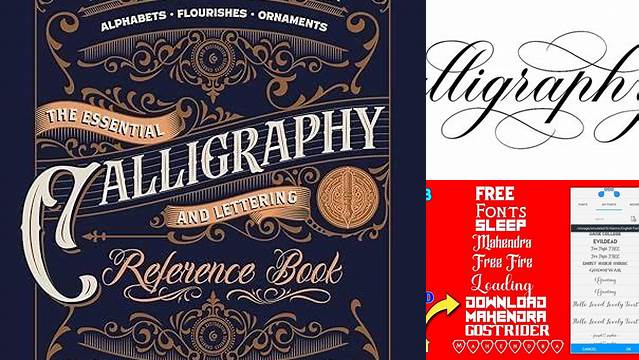
Elegant Calligraphy Fonts For PixelLab Designs
Hey guys! Are you looking to add a touch of elegance and sophistication to your PixelLab projects? One of the best ways to do this is by using beautiful English calligraphy fonts. Calligraphy fonts can transform your designs, making them look more professional and visually appealing. Whether youâre creating logos, posters, social media graphics, or invitations, the right font can make all the difference. In this comprehensive guide, weâll dive deep into the world of English calligraphy fonts for PixelLab, exploring what they are, why they're important, and how you can use them effectively. Weâll also provide you with a curated list of some of the best calligraphy fonts available and guide you on how to install and use them in PixelLab. So, letâs get started and elevate your design game!
What are English Calligraphy Fonts?
So, what exactly are English calligraphy fonts, and why should you care about them? Well, in simple terms, calligraphy fonts are typefaces that mimic the art of hand lettering. Think of those elegant, flowing strokes you see in wedding invitations or official documents â thatâs calligraphy! These fonts bring a sense of artistry and tradition to your digital creations, making them stand out from the crowd. Calligraphy fonts arenât just about looking pretty; theyâre about conveying a certain mood and message. They can add a touch of sophistication, romance, or even vintage charm to your projects. When you use a calligraphy font, you're not just adding text; you're adding a visual element that speaks volumes.
Now, let's talk about the importance of calligraphy fonts in design. Imagine you're creating a logo for a luxury brand â a standard, plain font just won't cut it, right? You need something that exudes elegance and class, and thatâs where calligraphy fonts come in. They can instantly elevate your design, making it look more refined and professional. Similarly, if youâre designing a wedding invitation, a beautiful calligraphy font can set the tone for the entire event, hinting at the romance and elegance to come. But it's not just about high-end designs; calligraphy fonts can also add a unique flair to social media graphics, posters, and even personal projects. They help you express your creativity and make your work more memorable. In the digital world, where visuals are king, using the right font is crucial, and calligraphy fonts are a powerful tool in your design arsenal.
When choosing a calligraphy font, there are several factors to consider. First and foremost, think about the overall style youâre going for. Are you aiming for a classic, traditional look, or something more modern and whimsical? Thereâs a wide range of calligraphy fonts available, from elegant scripts with elaborate flourishes to simpler, more contemporary styles. Consider the readability of the font as well. A beautiful font is useless if itâs too difficult to read. Make sure the letters are clear and distinct, especially in smaller sizes. Think about the weight of the font too â a thicker font might be better for headlines, while a lighter font could work well for body text or delicate designs. Finally, consider the context in which youâll be using the font. What works for a wedding invitation might not be suitable for a business logo, and vice versa. By carefully considering these factors, you can choose a calligraphy font that not only looks beautiful but also effectively communicates your message.
Why Use Calligraphy Fonts in PixelLab?
So, why should you specifically use calligraphy fonts in PixelLab? PixelLab is a fantastic mobile app for creating stunning graphics and designs right on your phone. Itâs user-friendly, packed with features, and, most importantly, it allows you to add custom fonts. This means youâre not limited to the standard fonts that come with the app â you can unleash your creativity with a wide array of calligraphy fonts. The ability to use calligraphy fonts in PixelLab opens up a world of possibilities for your designs. You can create professional-looking logos, eye-catching social media posts, personalized invitations, and much more, all from the convenience of your mobile device. Think about the impact of a beautifully crafted quote image with a flowing calligraphy font on your Instagram feed â itâs sure to grab attention and leave a lasting impression.
One of the biggest advantages of using calligraphy fonts in PixelLab is the level of customization they offer. PixelLab provides various tools to adjust the text, such as size, color, spacing, and shadow, allowing you to fine-tune the look of your calligraphy fonts to perfectly match your design. You can experiment with different combinations and create unique effects that reflect your personal style. For instance, you might want to add a subtle shadow to your calligraphy text to make it pop or adjust the spacing between letters to achieve a more balanced look. PixelLab also allows you to layer text, meaning you can combine different calligraphy fonts or use them in conjunction with other design elements to create complex and visually appealing compositions. This flexibility is crucial for creating designs that truly stand out and capture the essence of your message.
Using calligraphy fonts in PixelLab can significantly enhance the visual appeal of your projects. Imagine youâre designing a poster for an event â a bold, eye-catching calligraphy font can serve as the centerpiece, drawing attention and conveying the eventâs theme. Or, if youâre creating a birthday card, a delicate calligraphy font can add a personal and heartfelt touch. The key is to choose the right font for the occasion and use it strategically. Calligraphy fonts can also add a touch of elegance and professionalism to your work, which is particularly important if youâre creating designs for business purposes. A well-chosen calligraphy font can elevate your brandâs image and help you communicate your message in a sophisticated and memorable way. So, whether youâre a professional designer or just starting out, incorporating calligraphy fonts into your PixelLab projects is a fantastic way to boost their visual impact.
Best English Calligraphy Fonts for PixelLab
Alright, letâs dive into the fun part â the best English calligraphy fonts for PixelLab! There are tons of amazing fonts out there, but weâve curated a list of some top contenders that will surely make your designs shine. These fonts range from elegant and traditional to modern and playful, so youâll find something to suit any project. Remember, the best font for you will depend on the specific look and feel youâre aiming for, so donât be afraid to experiment and find your favorites.
Brush Script MT: This is a classic calligraphy font thatâs perfect for adding a touch of elegance to your designs. Its flowing strokes and graceful curves make it ideal for invitations, logos, and quote images. Brush Script MT has a timeless appeal that never goes out of style, making it a reliable choice for a wide range of projects. Whether youâre creating a sophisticated wedding invitation or a stylish social media graphic, this font will add a touch of class.
Great Vibes: True to its name, Great Vibes is a beautiful and lively calligraphy font that exudes positivity and charm. Its sweeping flourishes and delicate lines make it perfect for adding a whimsical touch to your designs. Great Vibes is particularly well-suited for wedding-related projects, such as invitations and save-the-dates, but it also works wonderfully for quotes, greeting cards, and other personal designs. The fontâs playful yet elegant style will bring a smile to anyoneâs face.
Remember, the key to great design is practice and experimentation. Donât be afraid to try out different fonts, colors, and effects until you find what works best for you. With the right calligraphy fonts and a little creativity, you can transform your PixelLab projects and create designs that are truly eye-catching and memorable. Whether youâre designing logos, invitations, social media graphics, or anything else, calligraphy fonts can add that extra touch of elegance and sophistication that sets your work apart. So go ahead, download some fonts, fire up PixelLab, and let your creativity flow. Happy designing!